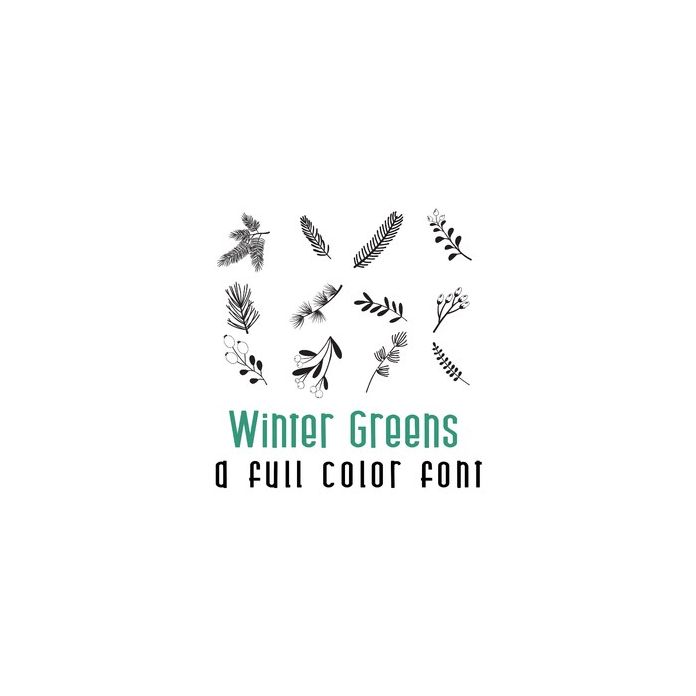
This beautiful doodlebat font features beautiful 26 wintery greens imagery. Perfect for cards, crafts, gifts, decor, scrapbook pages, planner stickers, and more!